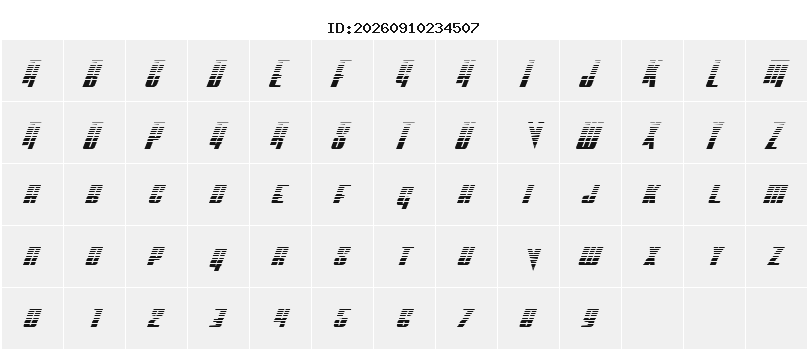
Vindicator Gradient Italic Preview
• Font Name: Vindicator Gradient Italic
• Full Font Name: Vindicator Gradient Italic
• PostScript Name: VindicatorGradientItalic
About Vindicator Gradient Italic.ttf
Vindicator Gradient Italic.ttf is a modern, elegant sans-serif font designed for ultimate readability and visual harmony. Perfect for branding, headlines, web design, and print materials.